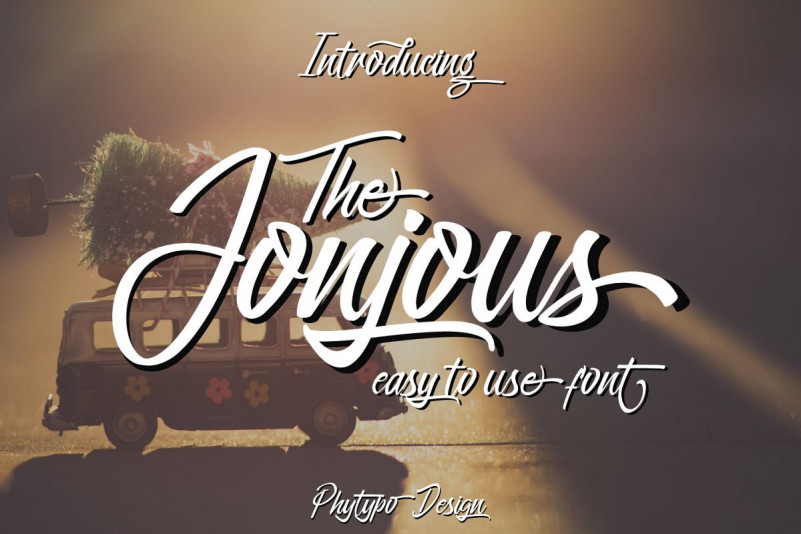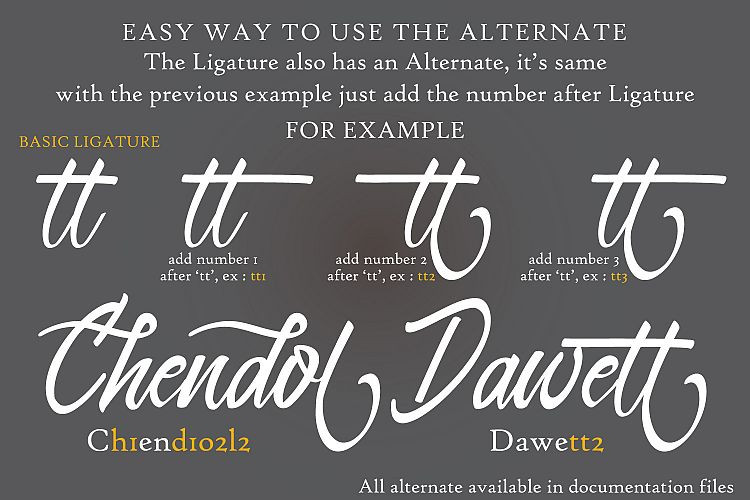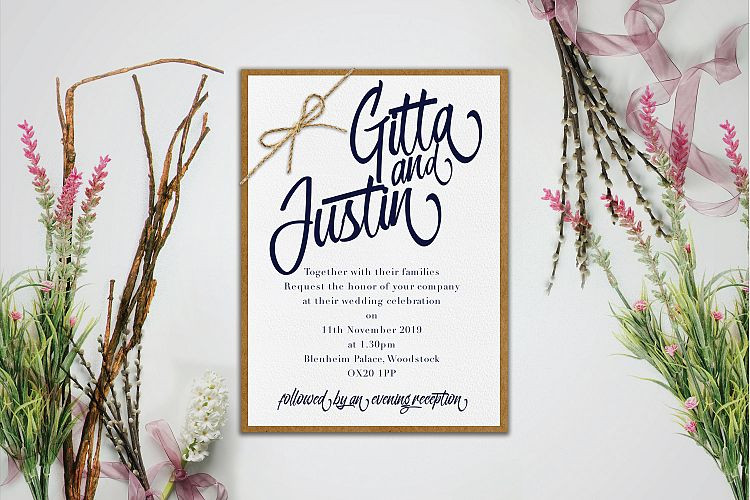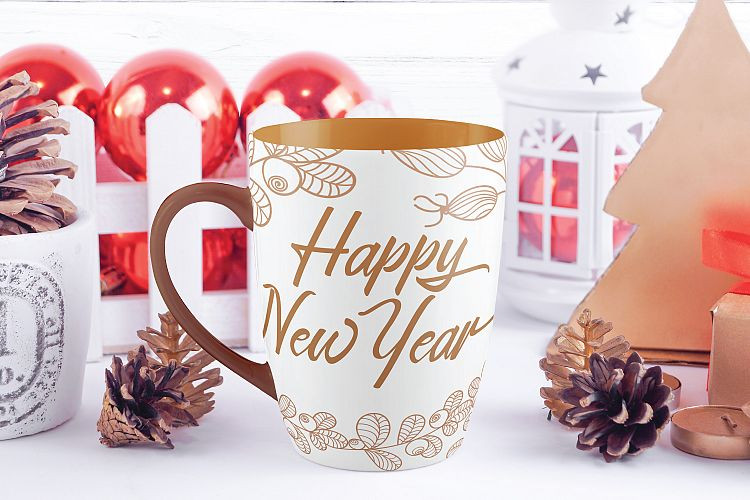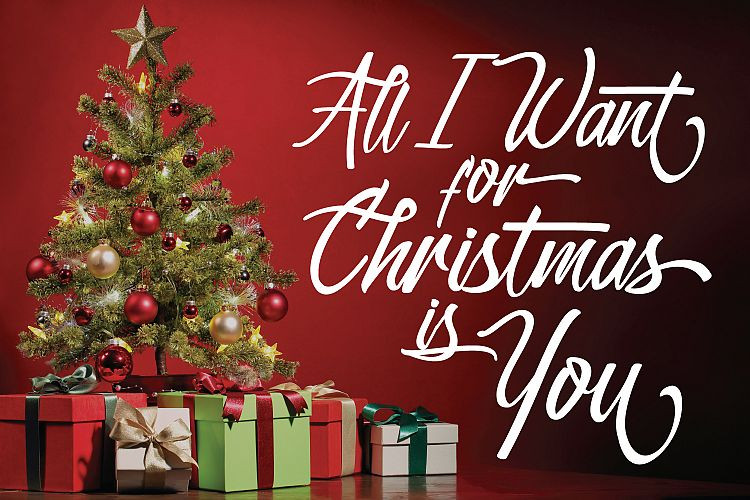
Jonjous Script Font
Hello world! This is a new fresh handmade calligraphy font. It’s cool font, with stylish and elegant font, it’s offers modern modern typographic of design projects. Introducing Jonjous Font. It is was designed by Phytypo Design. This font is an easy to use font that can make you easy to create craft. It’s perfect for branding projects, logo, book cover design, tshirt designs, social media posts, advertisements, product packaging, product designs, label, watermark, invitation, stationery and any projects